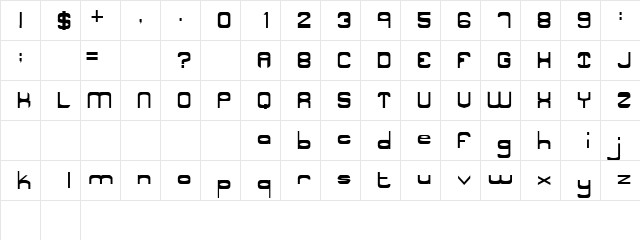
Nyak Squared 1
Design Context for Nyak Squared Typeface
Nyak Squared is a composed and adaptable typeface that performs quietly and consistently across a wide range of design contexts.